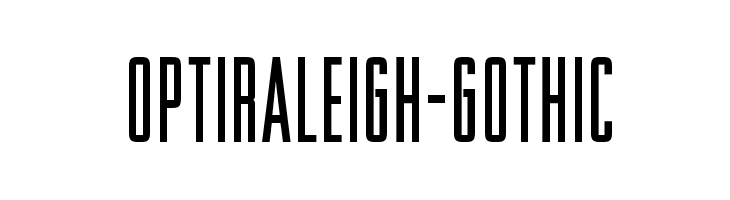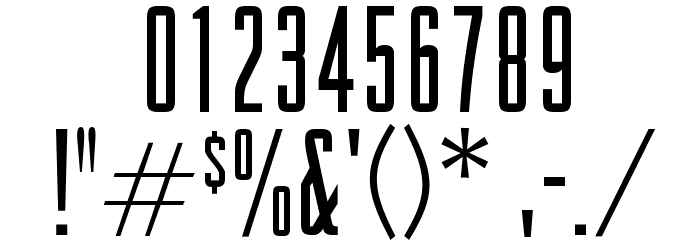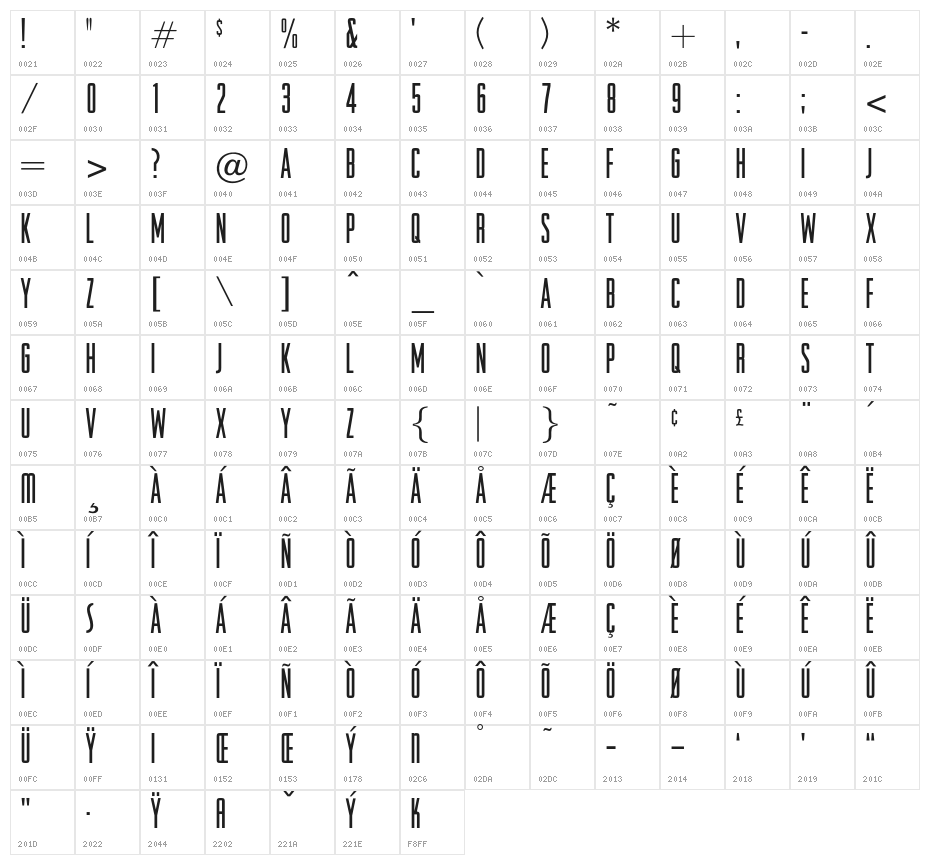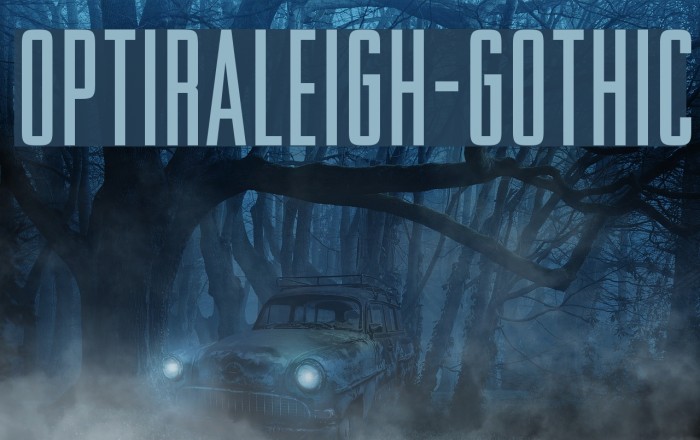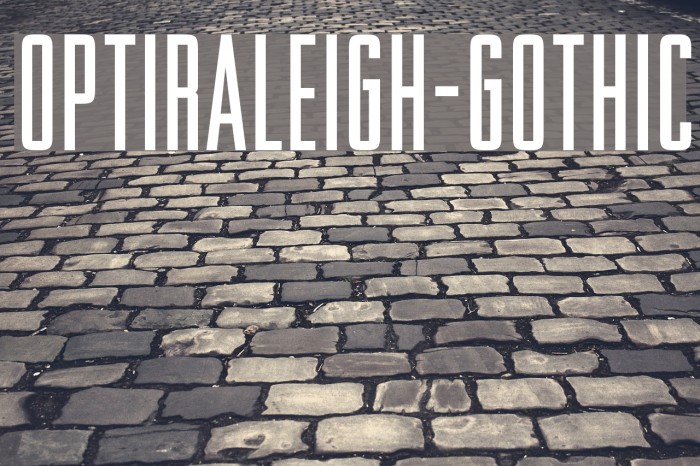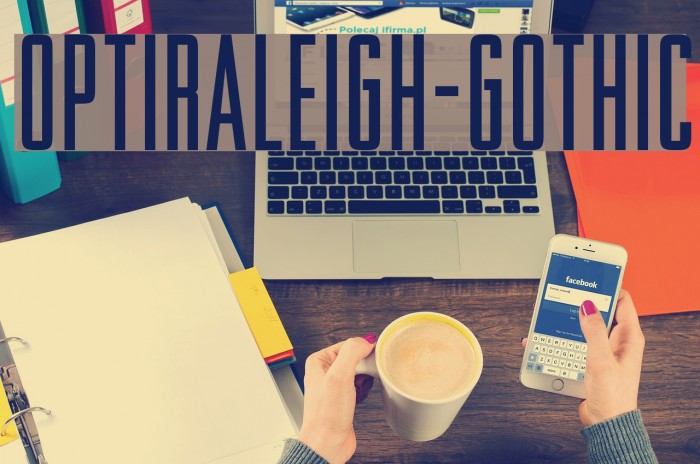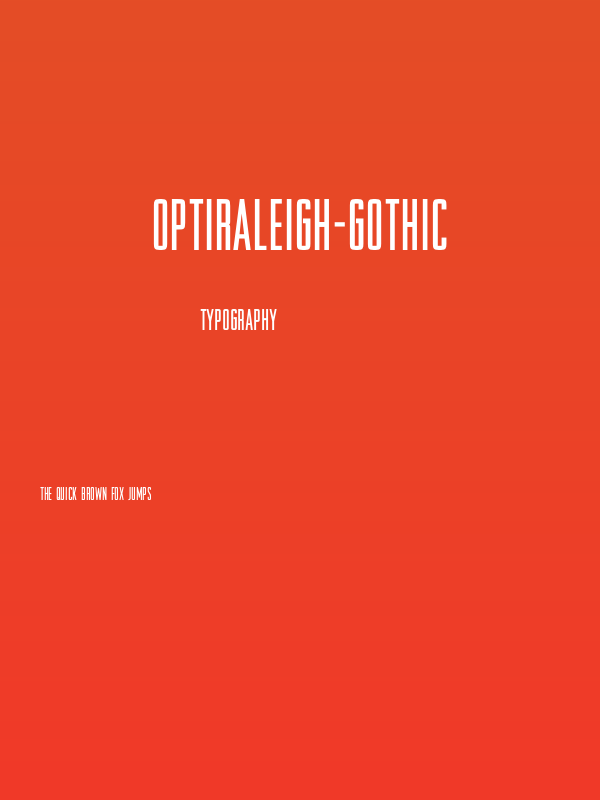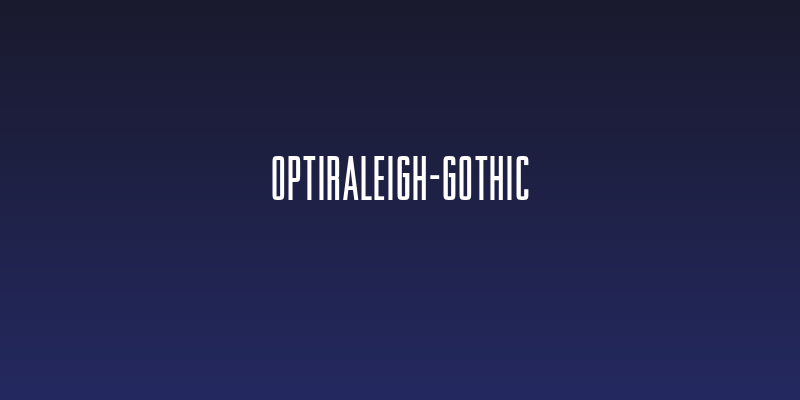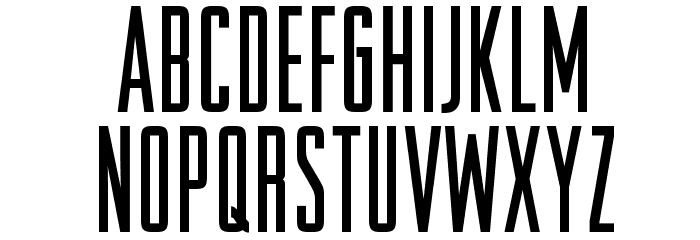
OPTIRaleigh-Gothic Font
OPTIRaleigh-Gothic Description
This font features a tall, narrow design with clean lines and a modern aesthetic. The uppercase and lowercase letters are consistent in style, with a uniform stroke width that gives it a sleek and professional appearance. The numerals are equally narrow, maintaining the cohesive look of the font. Special characters are designed to match the overall style, ensuring a harmonious appearance across all text. The font's vertical emphasis and condensed form make it ideal for creating impactful headlines and titles.
| Proposed Projects | Ideal for posters, headlines, branding, and editorial design where a strong, modern impact is desired. |